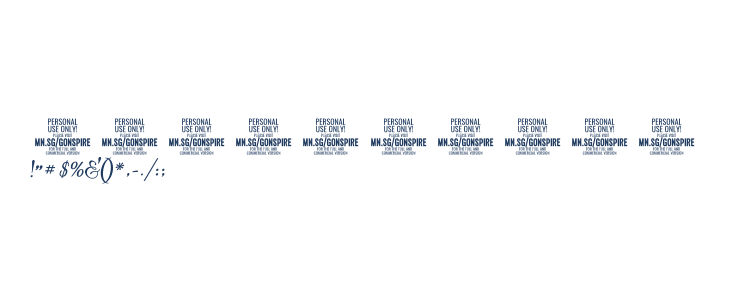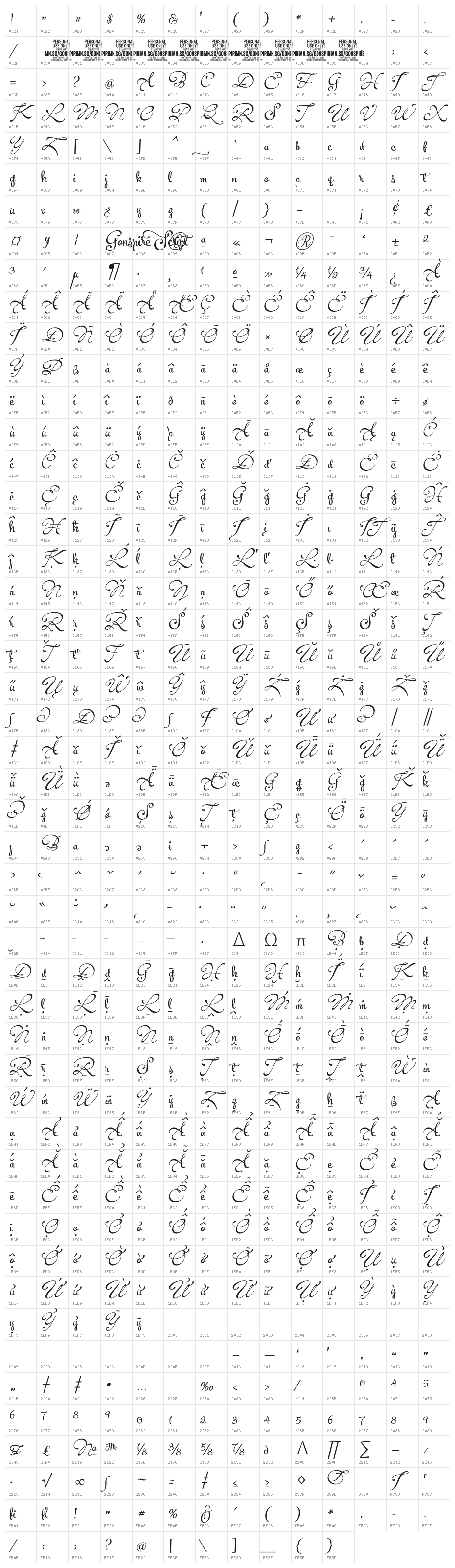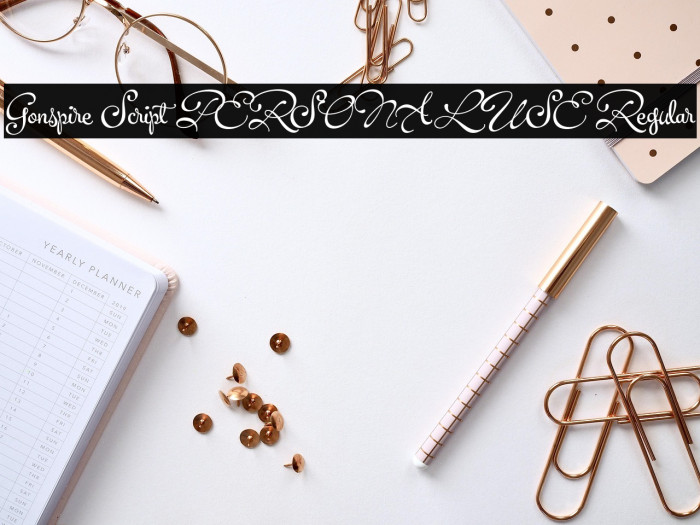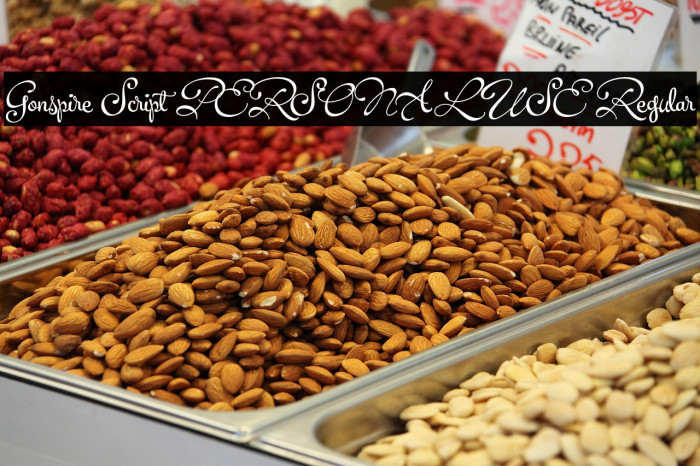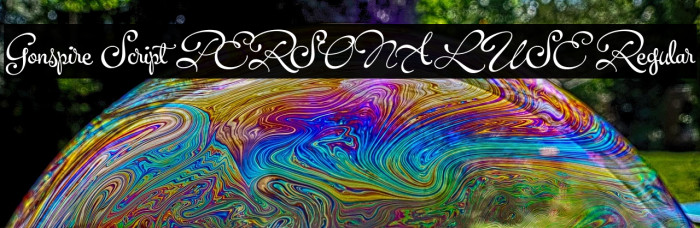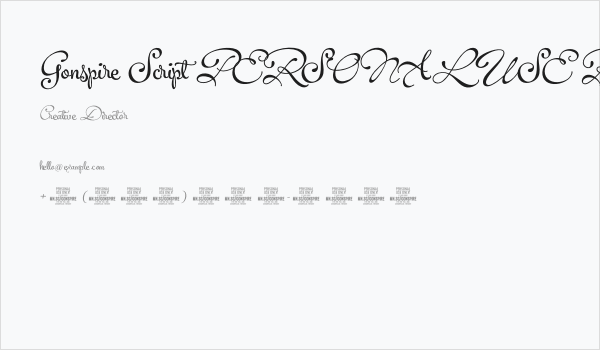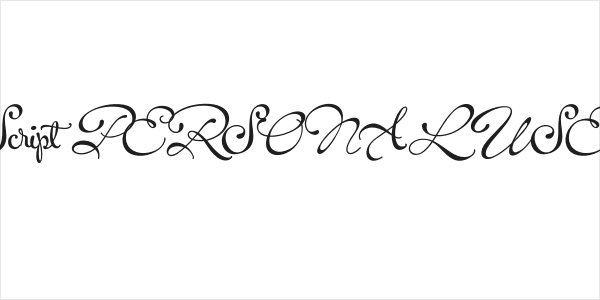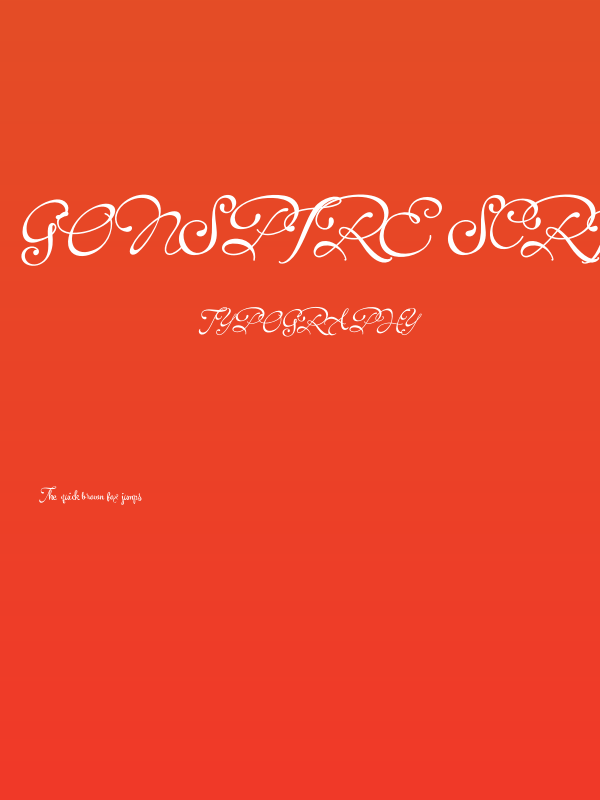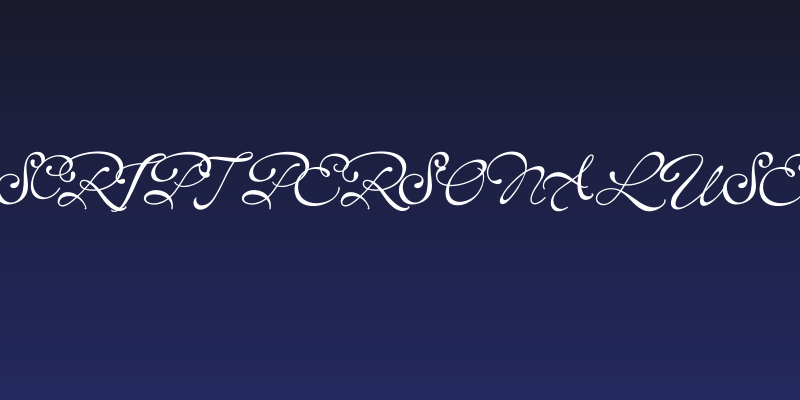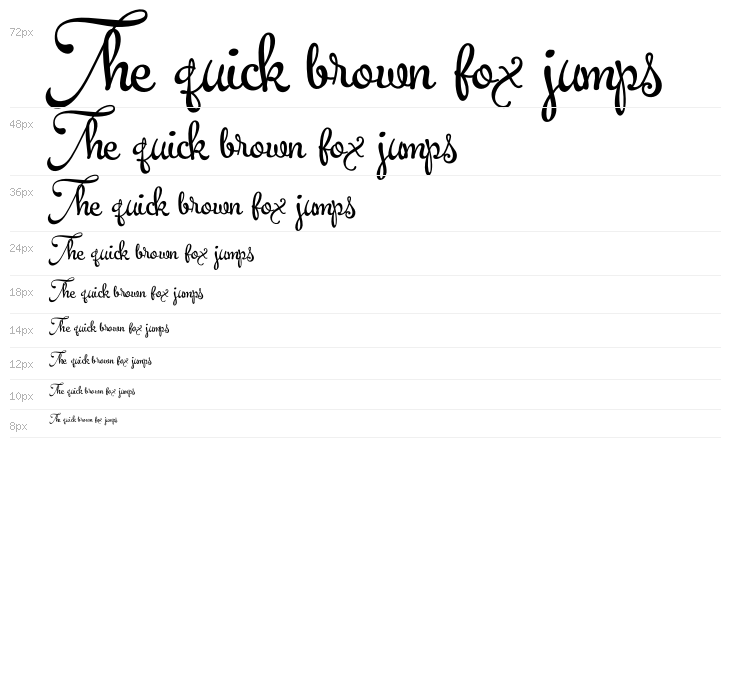
Gonspire Script PERSONAL USE Regular Font
Gonspire Script PERSONAL USE Regular Description
This elegant script font features intricate, flowing letterforms with a decorative flair. The uppercase letters are adorned with elaborate swirls and loops, giving them a sophisticated and ornate appearance. The lowercase letters maintain a consistent style, with smooth, connected strokes that enhance readability while retaining a sense of elegance. The numerals and special characters are designed to complement the overall aesthetic, with similar embellishments and curves. This font is ideal for projects that require a touch of luxury and refinement.
| Proposed Projects | Ideal for wedding invitations, luxury branding, elegant stationery, and decorative signage. |